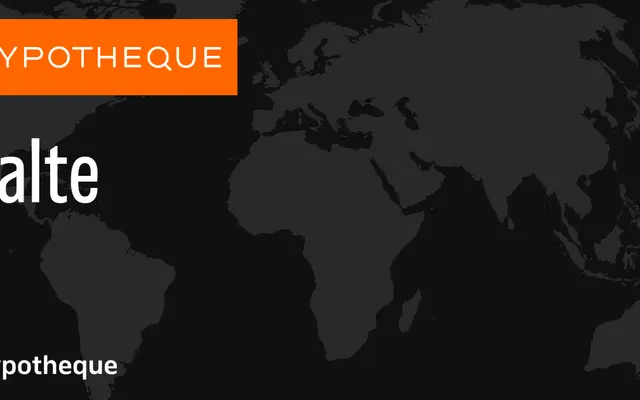
A five-weight humanist sans from Typotheque, available as a variable font with matching italics throughout.
Halte offers ten static styles spanning Thin to Bold with corresponding italics, plus a variable font for finer weight control. The family sits comfortably in text and interface work where a clean, measured sans is needed without strong stylistic idiosyncrasies. Typotheque's characteristic attention to glyph construction and multilingual coverage is evident in the breadth of city names used as specimen text.
The clean, upright letterforms with italic companions and a range of weights from Thin to Bold suggest a contemporary humanist sans-serif design, typical of Typotheque's rigorous approach to text typography.